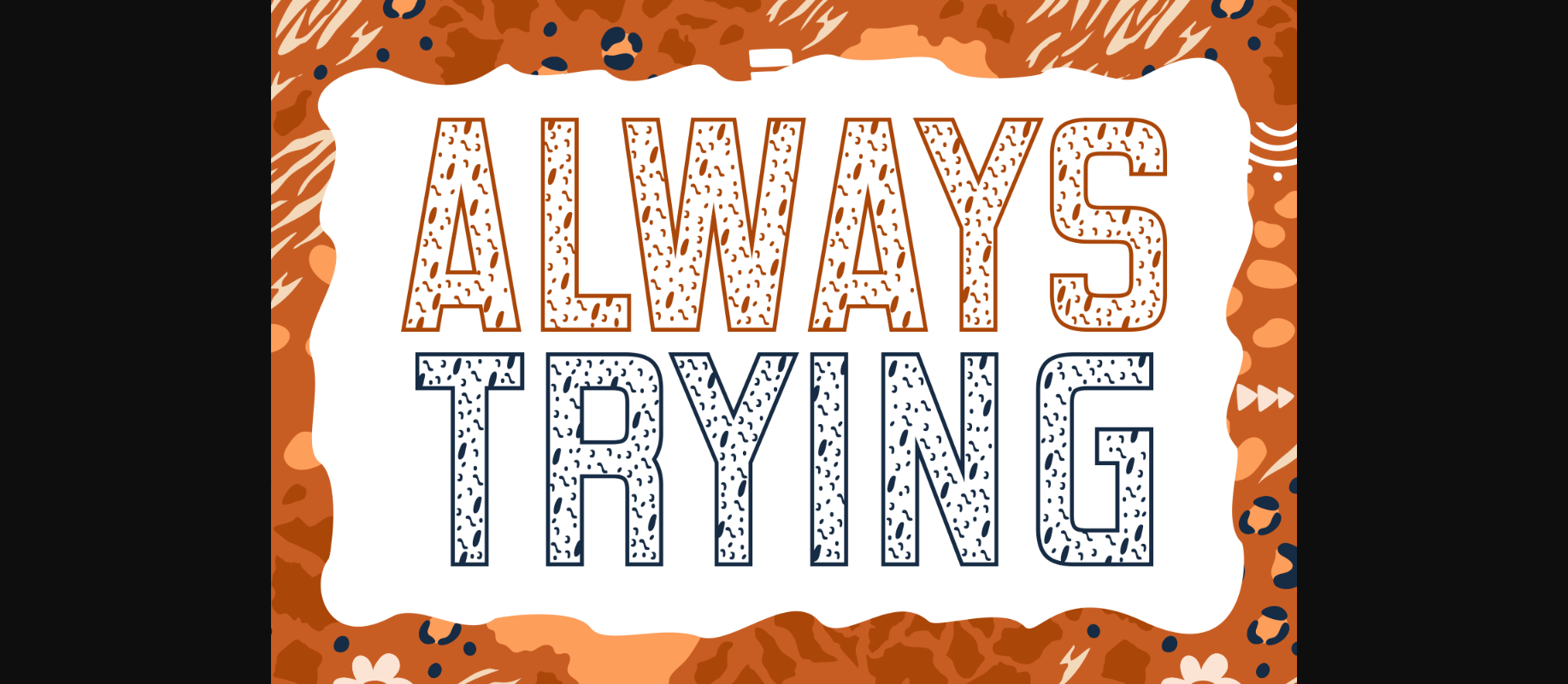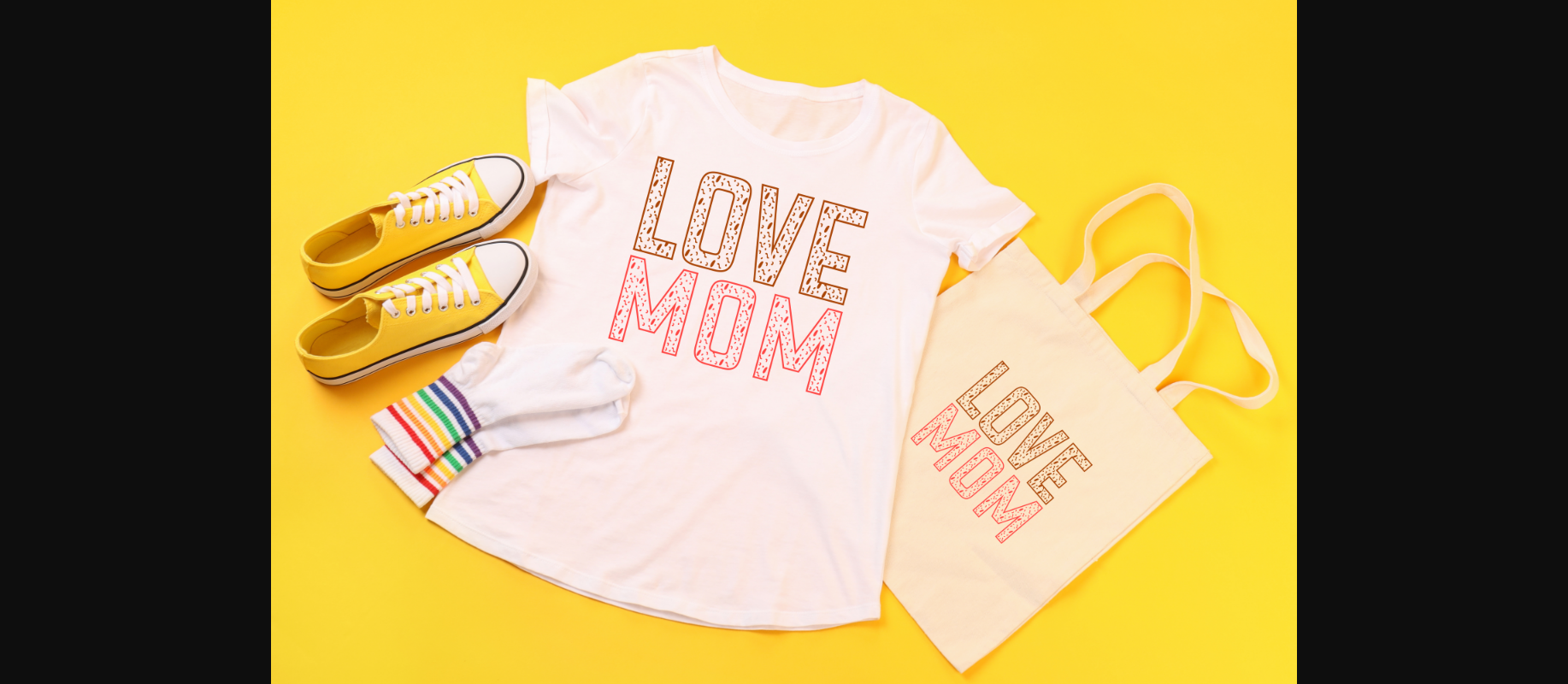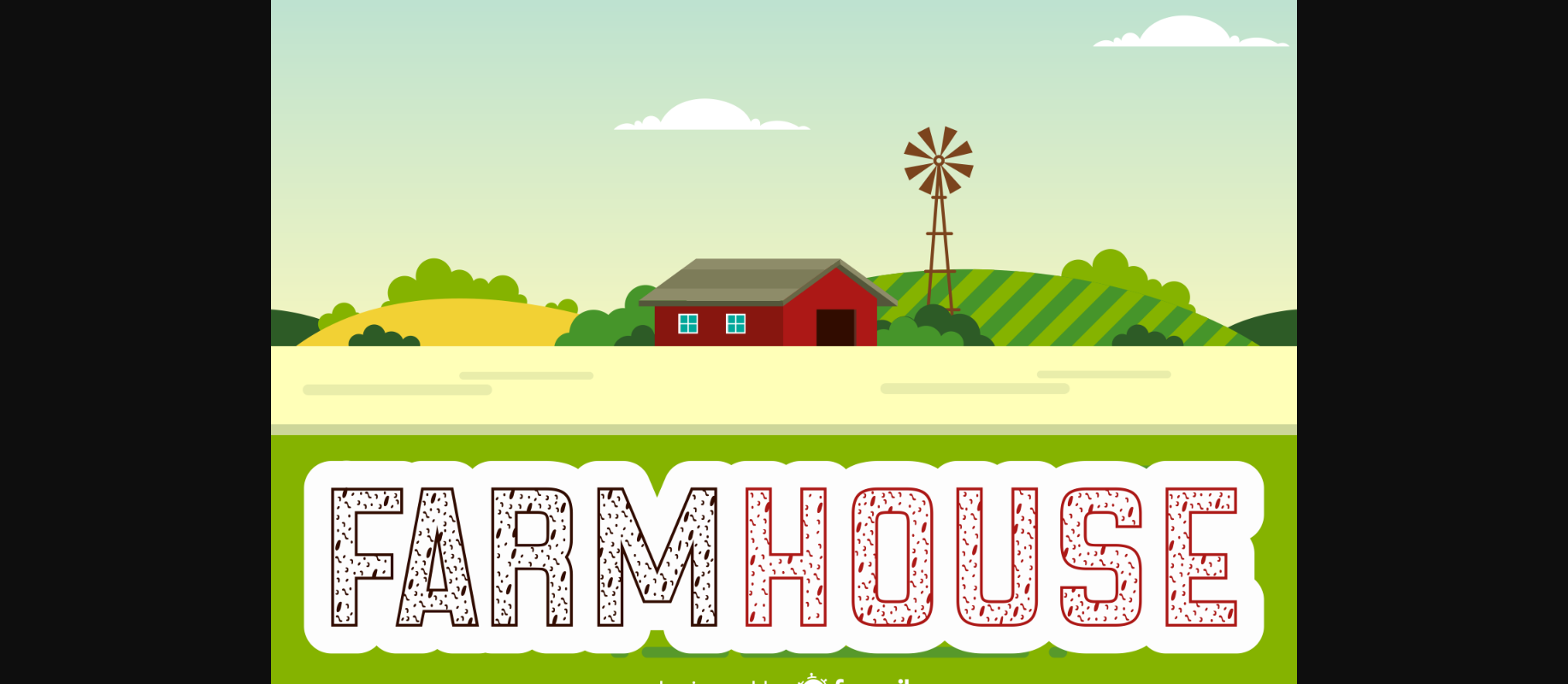
About Always Trying Font
Always Trying is a modern decorative font. Its unique shapes and stylish aesthetic will add a touch of sophistication to any project, making it perfect for logos, titles, or anything in between. Get ready to elevate your designs with this must-have font.